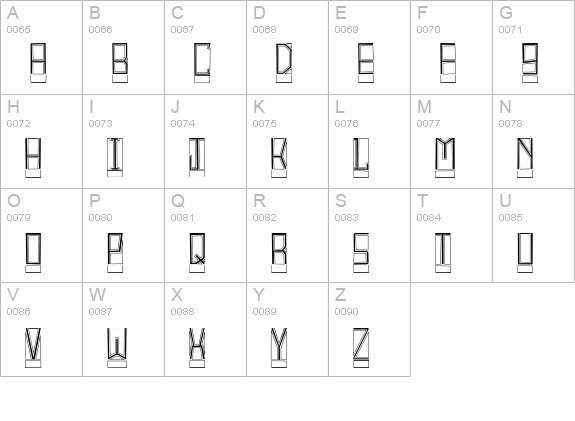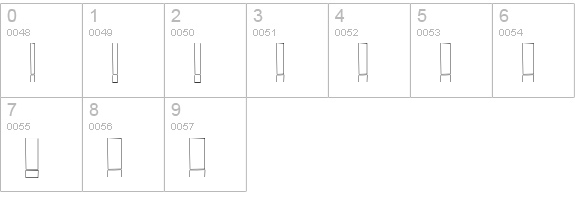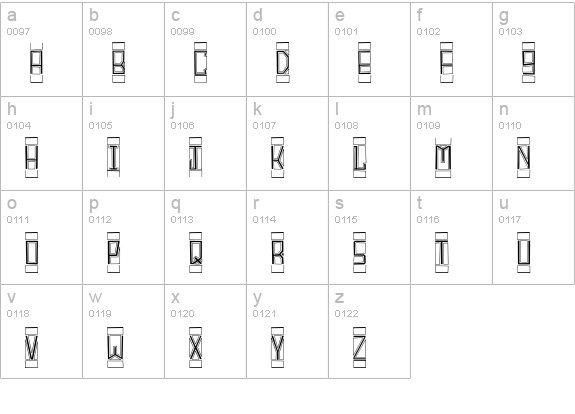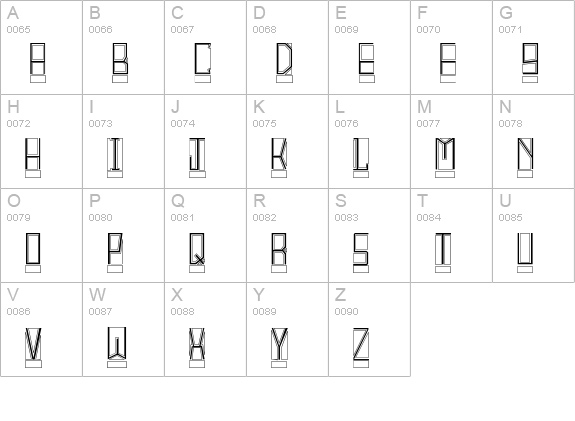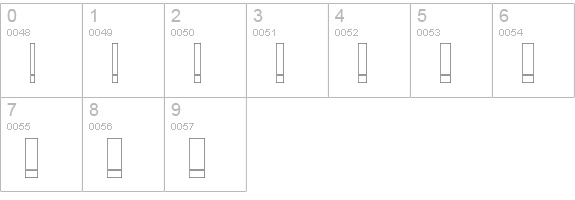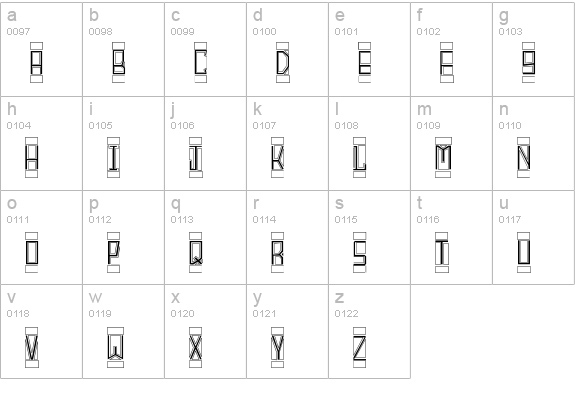
BlockTitling Outline Font Details
BlockTitling Outline font is a modern and eye-catching typeface that is perfect for creating bold and impactful designs. With its clean lines and distinct style, this font is ideal for headlines, titles, posters, and other display projects. The outlined design adds a unique touch to any text, making it stand out from the crowd. Best of all, BlockTitling Outline font is available for free download at FontsMarket.com. This means you can easily access this versatile font and use it in your design projects without any cost. Whether you're a professional designer or just starting out, BlockTitling Outline font is a great addition to your font collection. Download it now and unleash your creativity with this striking typeface!